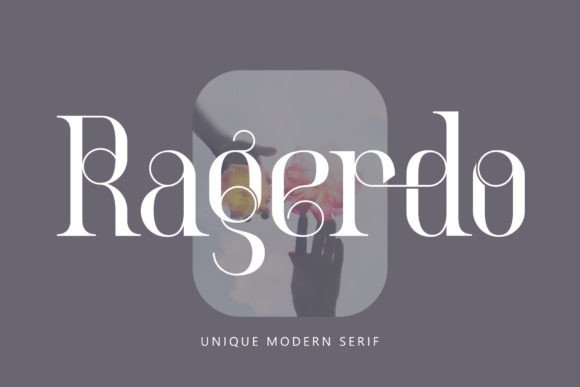
Introducing Ragerdo, the modern serif font that will transform your words into a visual masterpiece. Each letter in this font family is meticulously designed to create a sense of elegance, luxury, and sophistication that's sure to leave a lasting impression.
Express your personality with Ragerdo, the perfect font for your resume. Its modern style will make your application stand out from the crowd, showcasing your professionalism and creativity. Let Ragerdo speak for you, conveying your skills and experiences in a memorable and persuasive manner.
Ragerdo is more than just a font; it's an artistic tool that will elevate your branding projects to new heights. Whether you're designing a logo, creating a website header, or crafting social media graphics, Ragerdo's unique ligatures and elegant curves will add a touch of sophistication and originality to your work.
Join the creative revolution and embrace the power of Ragerdo. Let your imagination soar as you design projects that exude style, class, and luxury. Ragerdo is the key to unlocking your creative potential and making a statement with your designs.
Don't settle for ordinary fonts. Choose Ragerdo and experience the difference. Transform your words into art, your designs into masterpieces, and your projects into unforgettable experiences.